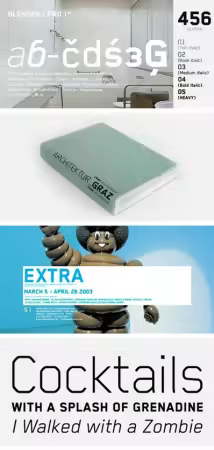
Nik Thoenen, a member of the Vienna-based design collective RE-P.ORG is the author of the Blender, released under Gestalten Fonts in 2003. Over the years, the designer has developed and created expanded character sets for Blender Central European (including Latin Glyphs for Bosnian, Czech, Estonian, Hungarian, Latvian, Lithuanian, Polish, Romanian, Slovak and Slovenian) and Blender Cyrillic (Slavic languages including Belarusian, Bulgarian, Macedonian, Russian, Serbian and Ukrainian).